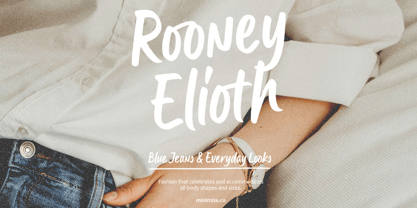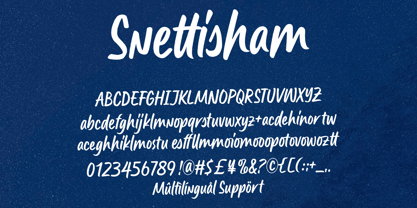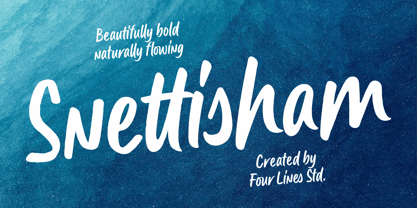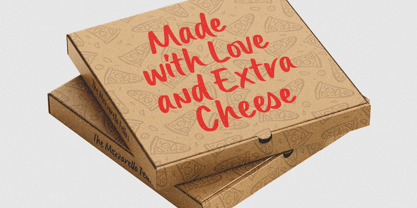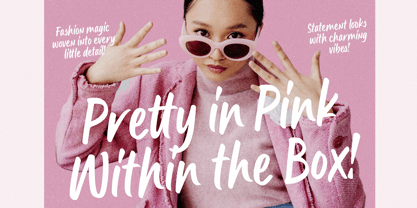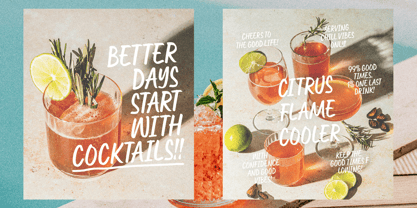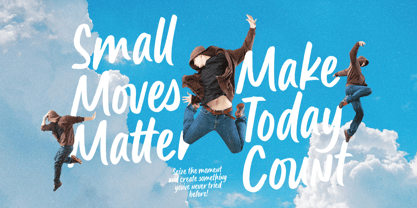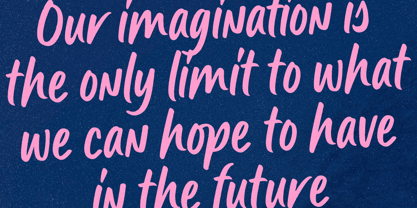
Snettisham
La famille de polices Snettisham a été conçue par Zain Fahroni et publiée par Four Lines Std. Snettisham contient 1 styles. En savoir plus sur cette famille
Snettisham is a bold handwritten script with a natural, smooth flow and full of character. Every letter feels lively with a casual, warm, and expressive handwritten style, making your designs look more stylish without feeling overdone.
With its bold yet effortless flow, Snettisham works beautifully for branding, logos, packaging, fashion, posters, social media, and many creative projects that need a more personal and standout touch.
Beautifully bold, naturally flowing.
Four Lines Studio is a graphic design studio founded in 2019 by Zain Fahroni in Bandung City, Indonesia. The studio's name is inspired by a friendship story that is close to the founder's heart. Our work is heavily influenced by this friendship, which has given birth to an identity that is associated with fun, playful, and groovy elements. A key area for the studio is typography, with a specific focus on developing fonts that emphasize minimalism and versatility.